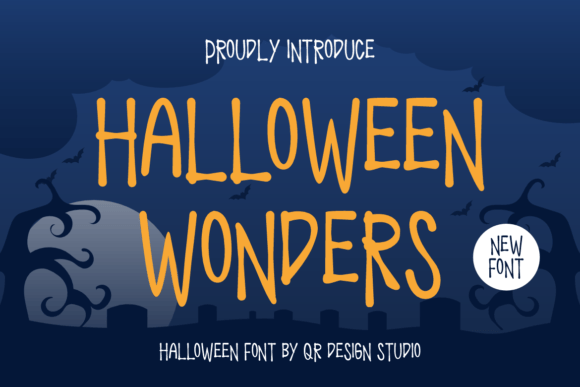
Introduction to Halloween Wonders Font
Halloween Wonders is a bold and authentic handwritten font.
It is suitable for any branding project like logo, hallowen, food, posters, kids, sports, and many more Outstanding in a wide range of contexts.
Key Features of Halloween Wonders Font